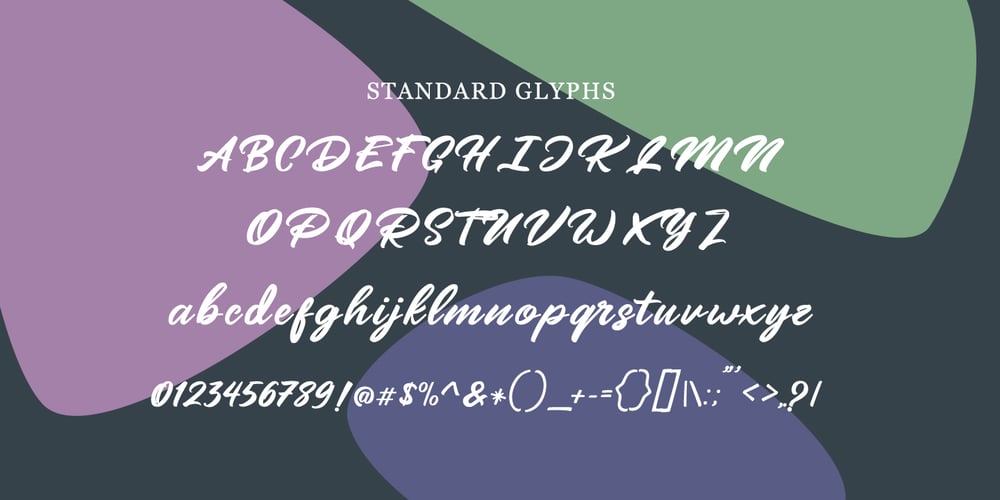
Mangotea
Mangotea font
Mangotea Font Family was designed by Ferry Hadriyan and published by FHFont. Mangotea contains 1 styles and family package options. Mangotea is bold script brush font with a hand-lettering brush style, and includes Opentype features. It is suitable for design, element design, wedding, event, t-shirt, logo, badges, sticker, and awesome work, etc…